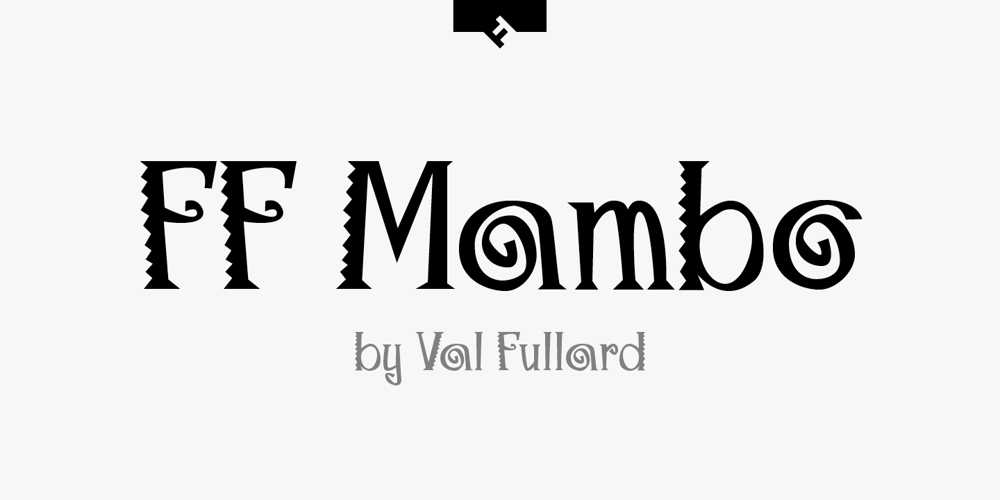
FF Mambo
FF Mambo font
FF Mambo Font Family was designed by Val Fullard and published by FontFont. FF Mambo contains 3 styles and family package options. Canadian type designer Val Fullard created this display FontFont in 1992. The family contains 3 weights: Light, Medium, and Bold and is ideally suited for festive occasions, music and nightlife as well as poster and billboards. FF Mambo provides advanced typographical support with features such as ligatures, titling alternates, alternate characters, and case-sensitive forms. It comes with tabular lining figures.